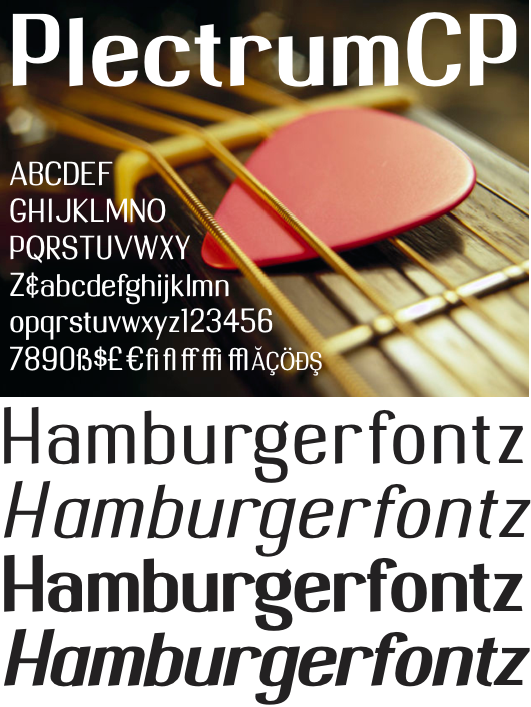
Plectrum Family (1 font)
Designed as a humanist style sans serif, the letters have variation in stroke weight. The italic faces have some variation in the letter design making them more of a true italic rather than simple oblique faces.
The complete family consist of four weights: Regular, Italic, Bold and Bold Italic which can be purchased separately or as a complete package. The typeface has some unique features which add warmth to the design such as a slanted cross bar on the lowercase e and a large x-height.
Plectrum is an ideal design for text, display, packaging, book jackets, editorial, and headlines that need to get noticed.